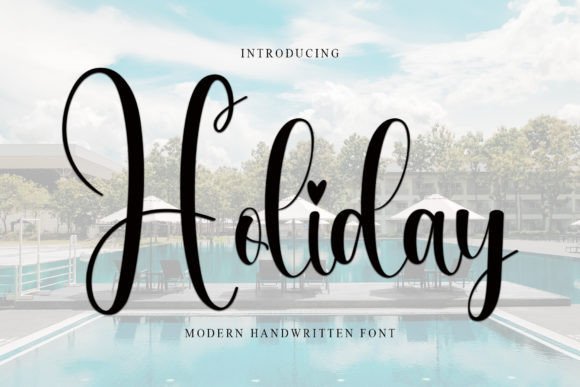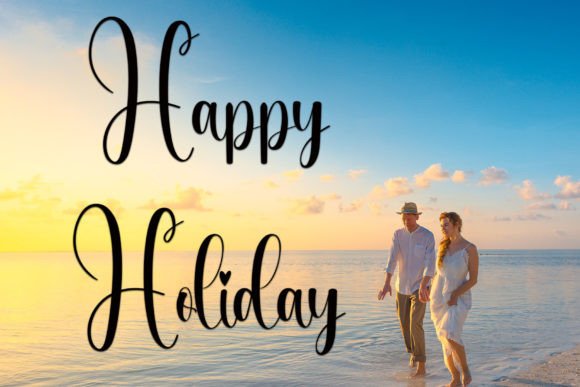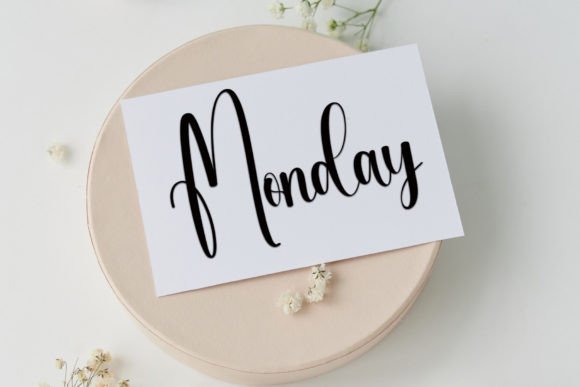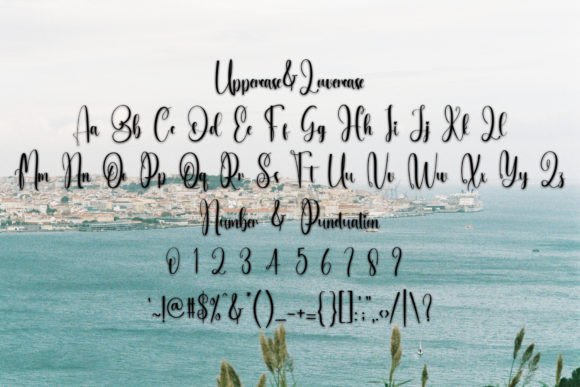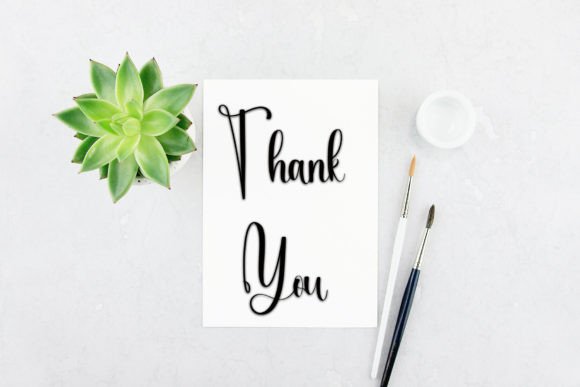
Unwrap the Magic of the Holiday Season with a Font that Speaks to Your Soul
As the holiday lights start twinkling, and the festive atmosphere begins to unfold, don’t you wish your designs could capture the same warmth and magic? For designers, the quest for the perfect font is an ongoing one, and today, we’re thrilled to introduce you to the perfect companion for your holiday projects – the Holiday Font.
This beautiful, handwritten font embodies the essence of a timeless classic calligraphy, with a contemporary twist that’s sure to elevate your designs. With its balanced and varied style, the Holiday Font is designed to bring out the best in your projects, making it a valuable addition to any designer’s toolkit. And the best part? It’s PUA encoded, so you can access all the amazing glyphs and ligatures with ease, taking your designs to new heights.
Holiday Font Key Features
- Font Family: Holiday Font is a display font family designed to evoke the feeling of the holiday season. It includes multiple weights and styles.
- Unique Characteristics: The font features intricate, hand-drawn illustrations and ornaments that add to its festive feel, making it perfect for holiday-themed designs.
Holiday Font Review
First off, I have to say that I was really excited to dive into the Holiday Font and see what it had to offer. Here are some of the things that really stood out to me: ✨
- Unique Feel**: The font has a really fun, playful vibe that immediately puts you in the mood for the holidays.
- Good Versatility**: I was pleasantly surprised by how well the font worked in a variety of different contexts, from social media posts to website headings.
- High-Quality Graphics**: The font comes with some really nice graphics and icons that can help add some extra flair to your designs.
However, as with any font, there are some limitations to be aware of: ⚠️
- Limited Customization**: While the font itself is high-quality, I found that there were limited options for customizing it to fit my specific design needs.
Overall, I would say that the Holiday Font is a solid choice for anyone looking for a fun, festive font to add some holiday cheer to their designs. While it may not be perfect, it’s definitely worth checking out.
For a more festive look, you can use the Holiday Font in combination with other festive elements such as holly, snowflakes, or Christmas trees. Experiment with different colors and arrangements to find the perfect look for your design.
For a more polished look, you can use the Holiday Font in combination with other design elements such as ribbons, garlands, or ornaments. Use the layer blending modes and opacity settings to achieve a cohesive look.
For a more festive look, you can use the Holiday Font in combination with other festive elements such as snowflakes, holly, or Christmas trees. Experiment with different colors and arrangements to find the perfect look for your design.
The Holiday Font is perfect for creating festive designs for:
Christmas cards and invitations
New Year’s Eve party invitations
Winter-themed social media posts
Holiday marketing materials and advertising
Personalized gifts and decorations
Use the Holiday Font in combination with other festive elements to create a cohesive look.
Experiment with different colors and arrangements to find the perfect look for your design.